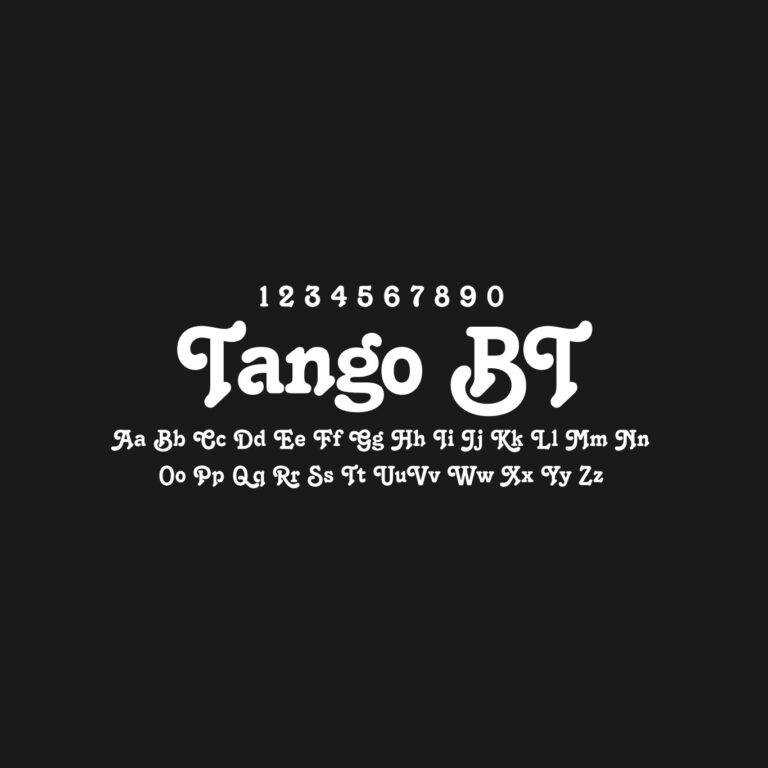
Tango BT is a decorative display font with a bold and expressive character. Its distinctive letterforms make it useful for headlines, logos, posters, packaging, invitations, social media graphics, event visuals, music artwork and creative typography projects that need a more stylish and eye-catching look.